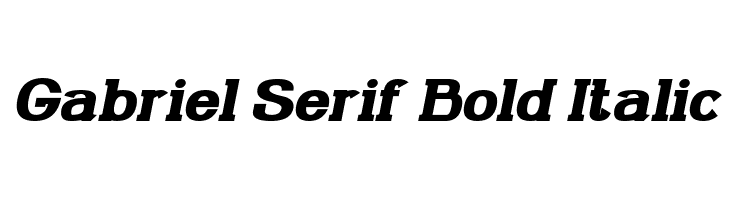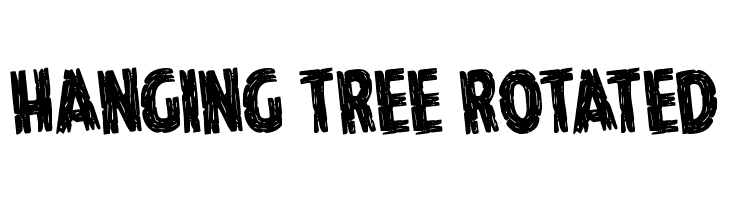
A bold, hand-drawn font with a rough, textured, and dynamic appearance.
A bold, expressive script font with flowing cursive letters and strong visual impact.
A bold, italicized font with a modern and dynamic style.
Bicycle-themed decorative font with each glyph as a different bike or scooter.
A geometric outline font with sharp, angular letterforms and a modern aesthetic.
A bold, geometric font with a futuristic, angular design.
A dynamic italic font with bold, fluid strokes and moderate contrast.
A bold, horror-themed font with dripping effects and jagged edges.
Retro-themed dingbat font with mid-century cartoon illustrations.
A playful, bold font with decorative dots and rounded characters.